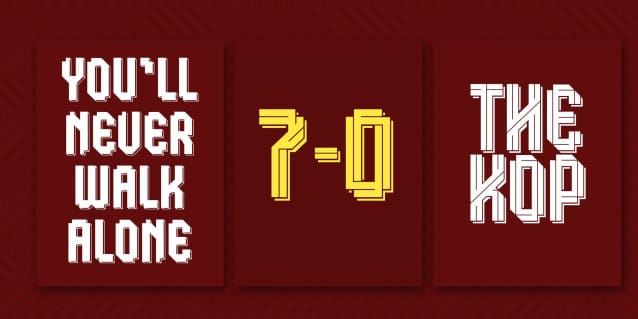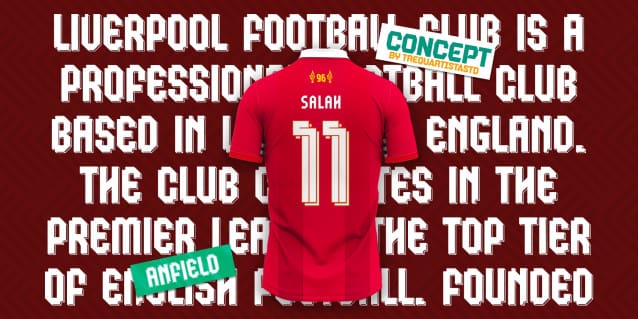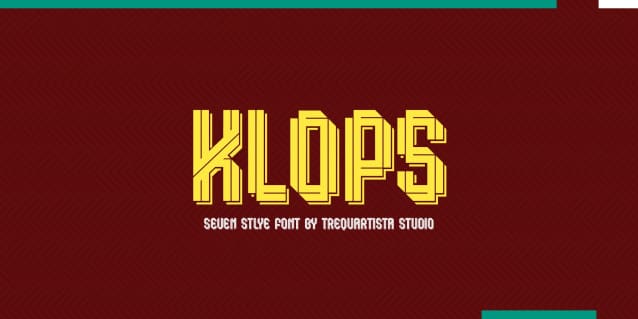
Klops 7 Style Font
Klops 7 Style Font, a condensed sport . Klops has 7 Style with sans serif . This typeface has a clean and athletic look, glyphs and extensive Latin script support. Jersey Font is tall, vibrant with sharp sans serifs and competitive appearance, therefore excellent to use for headers, logos, captions and posters, especially for the sports branding industry, but just as good for any other projects.